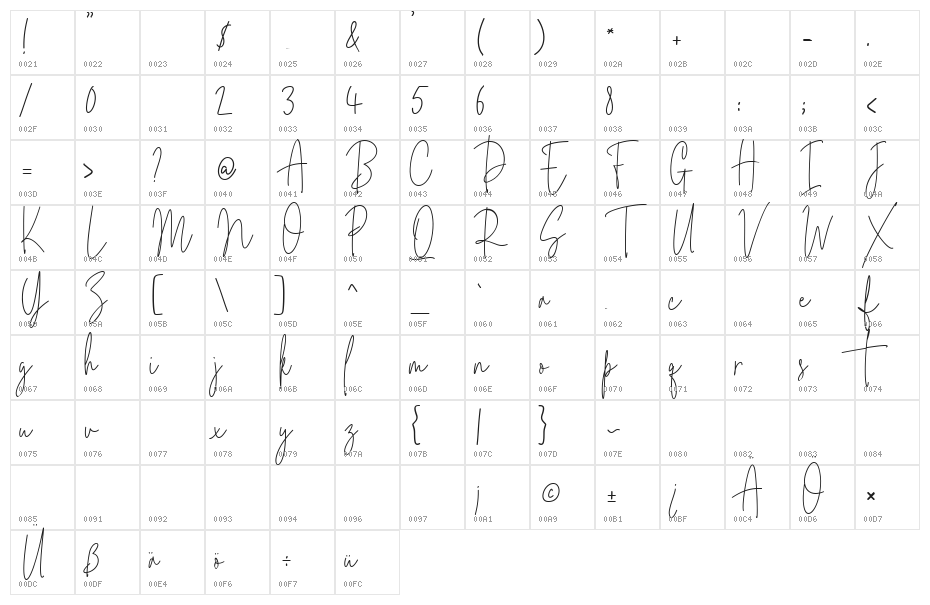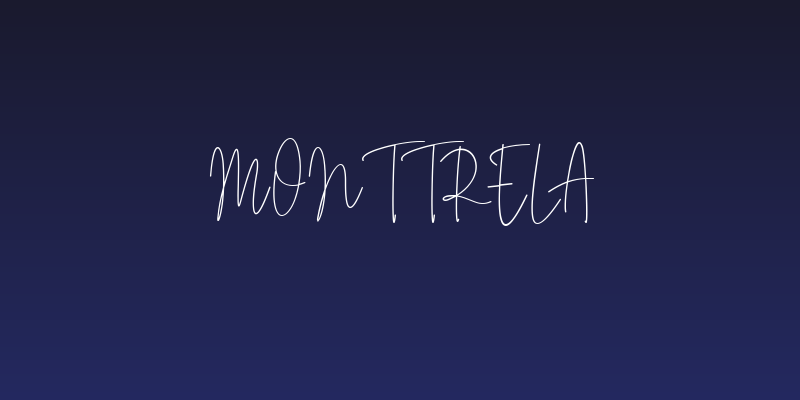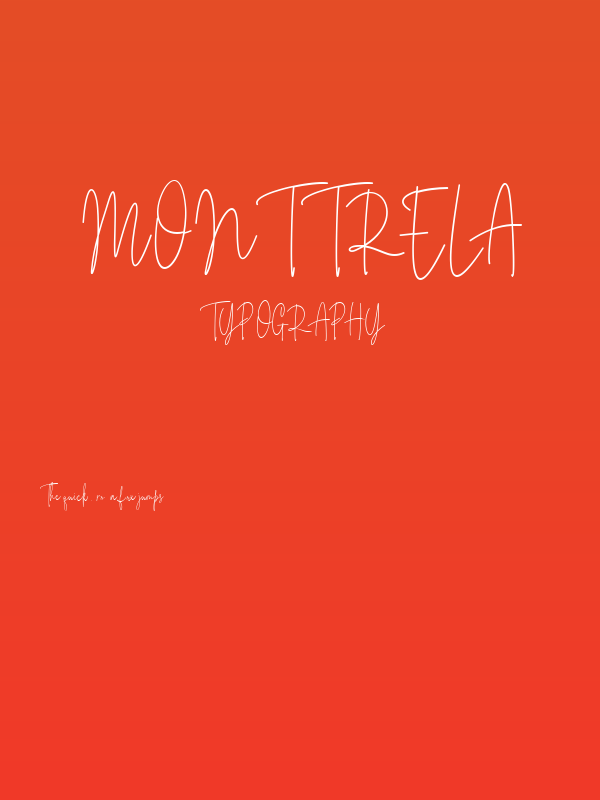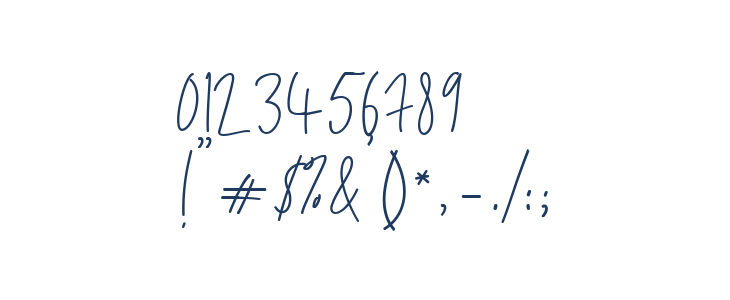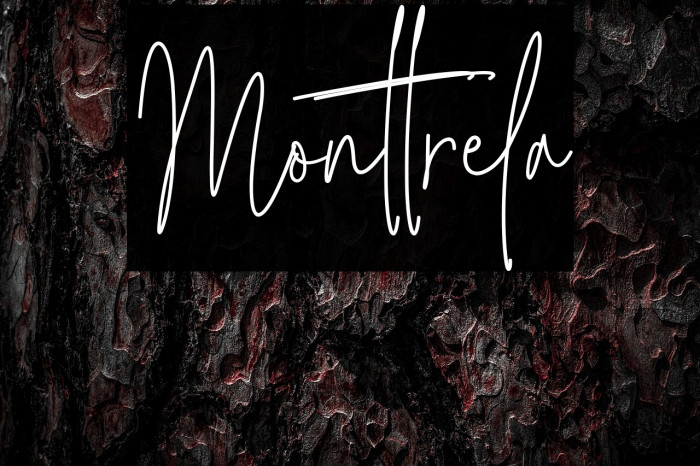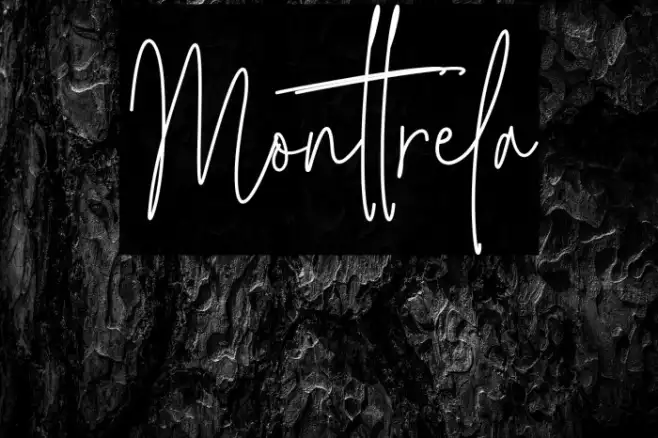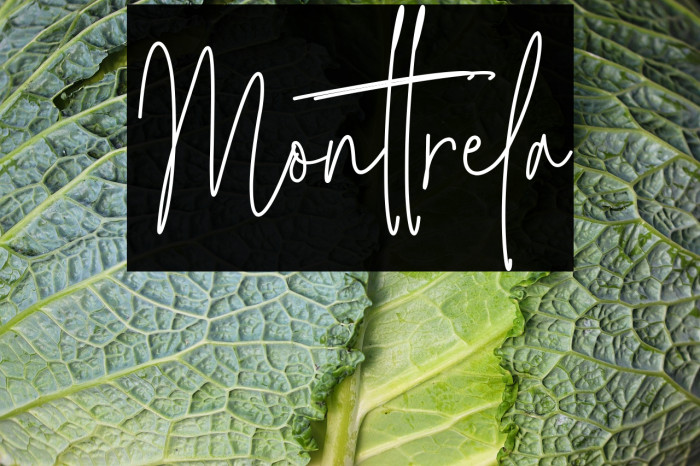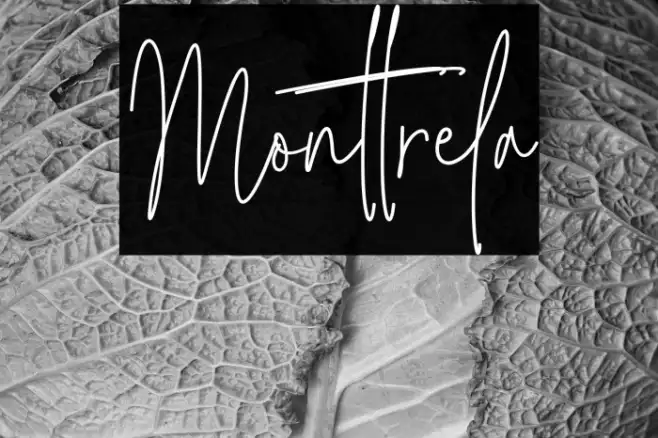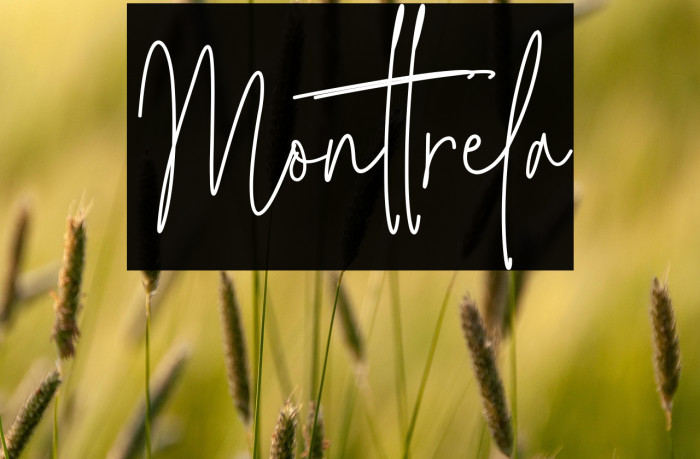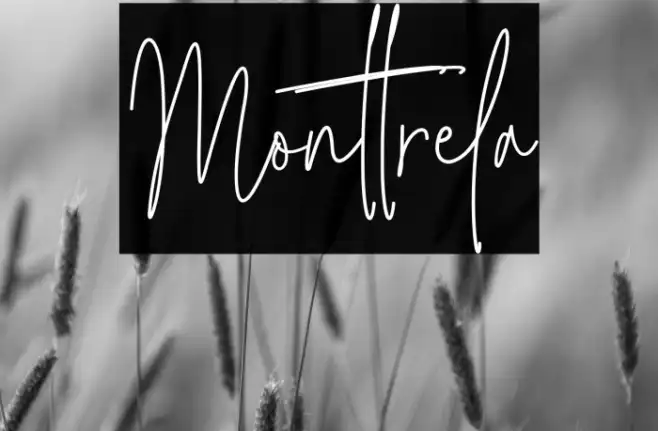
Monttrela Font
Monttrela Description
This font features a lively and energetic handwritten style, characterized by its fluid and continuous strokes. The letters are tall and slender, with a slight slant that adds a dynamic feel. The uppercase letters maintain a consistent height, while the lowercase letters exhibit a playful variation in size, enhancing the casual and informal appearance. The numerals are clear and legible, matching the overall aesthetic with their elongated forms. Special characters are integrated seamlessly, maintaining the font's cohesive look. This font's unique personality makes it suitable for projects that require a personal touch.
| Proposed Projects | Ideal for greeting cards, personal branding, social media graphics, and creative invitations. |